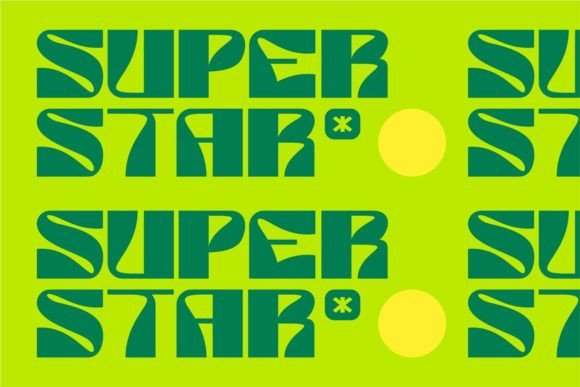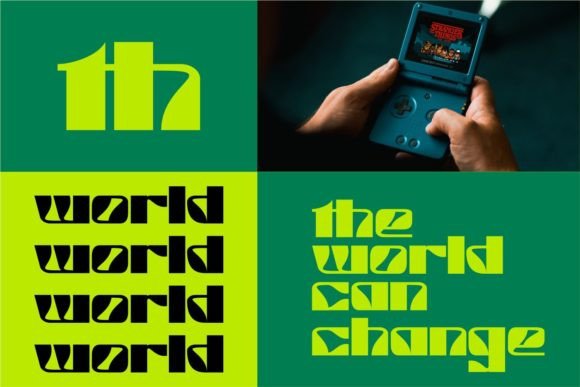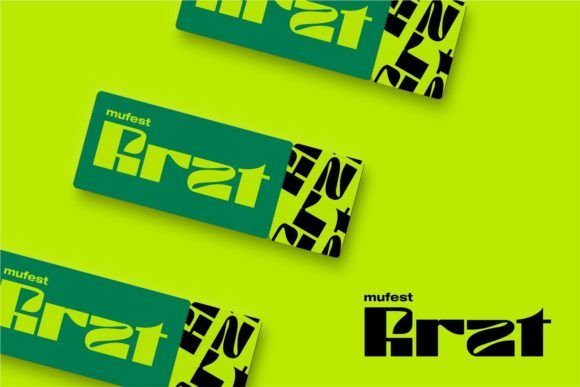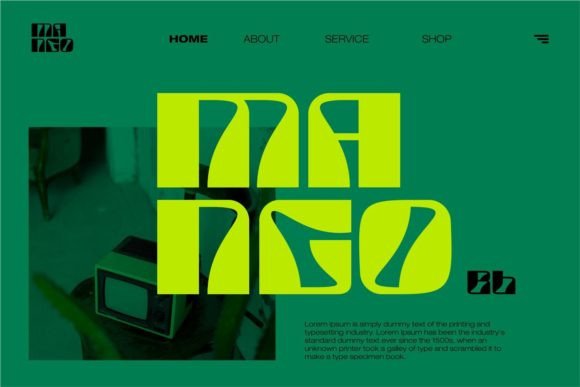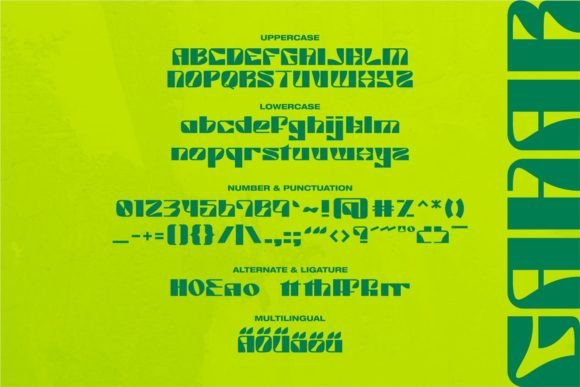
Introduction to Gahar Font
Gahar is a wavy, whimsical, and uniquely shaped display font.
Trendy and stylish, this font will elevate each of your creations .
Key Features of Gahar Font